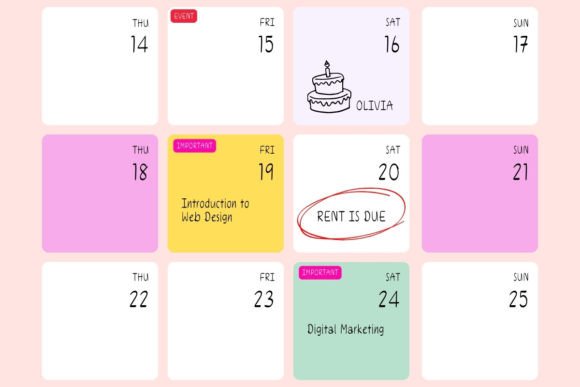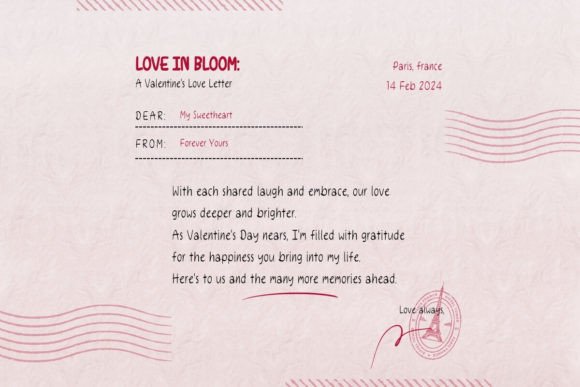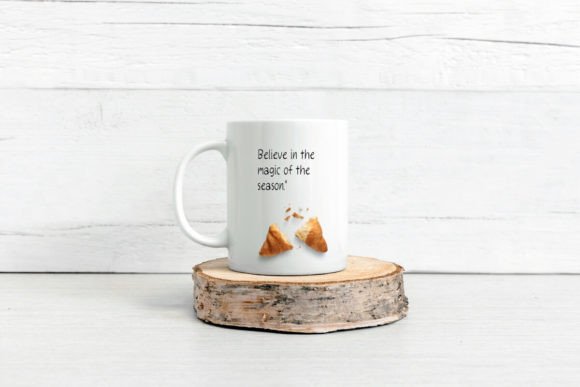
Introduction to Notto Font
You know that moment when you’re working on a creative project and you just can’t find the right font to give it that extra oomph? For designers, it’s a common struggle, but what if we told you that there’s a solution that can elevate your projects to the next level? Enter the Notto Font, a beautiful, high-quality handwriting font that’s perfect for invitations, branding, and personal touches.
With its impeccable, neat handwriting and modern design, Notto Font is a game-changer for any design project. And the best part? It’s completely free to download, making it a valuable resource for designers of all levels. Whether you’re working on a design project or just need a high-quality font for a personal touch, Notto Font is the perfect choice. Its transparent background and elegant design make it a versatile and effective design resource that’s sure to impress.
Key Features of Notto Font
- High-quality, free download font perfect for creative projects.
- Transparent background design allowing for seamless integration.
- Comes in a single font size, making it easy to use across different designs.
- Resolution-independent, ensuring crisp and clear text regardless of screen size or resolution.
- Unique, modern design making it an excellent design resource for creative projects.
Honest Review: Notto Font
I recently stumbled upon the Notto Font, a free download that caught my attention due to its unique design and transparent background. As a designer, I’m always on the lookout for high-quality design resources to elevate my creative projects.
- ✨ Unique design aesthetic that sets it apart from other fonts
- ✨ Transparent background, allowing for seamless integration with various design elements
- ⚠️ Limited font weights and styles, which may not be suitable for complex design projects
- ⚠️ Not as versatile as other fonts in terms of font sizes and combinations
Overall, I’m impressed with the Notto Font’s design and functionality. While it may not be the most comprehensive font, it’s an excellent addition to any designer’s toolkit. If you’re looking for a unique and high-quality font for your creative project, the Notto Font is definitely worth considering.
Notto Font
Tips for Getting the Most Out of Notto Font
For the best results, use Notto Font in a design project with a free download template. This will allow you to experiment with different layouts and designs without any restrictions. Additionally, use the high-quality feature to ensure your design stands out.
Notto Font is ideal for a wide range of creative projects, including social media graphics, presentations, and documents. Its transparent background feature makes it perfect for designs that require a clean and minimal look.